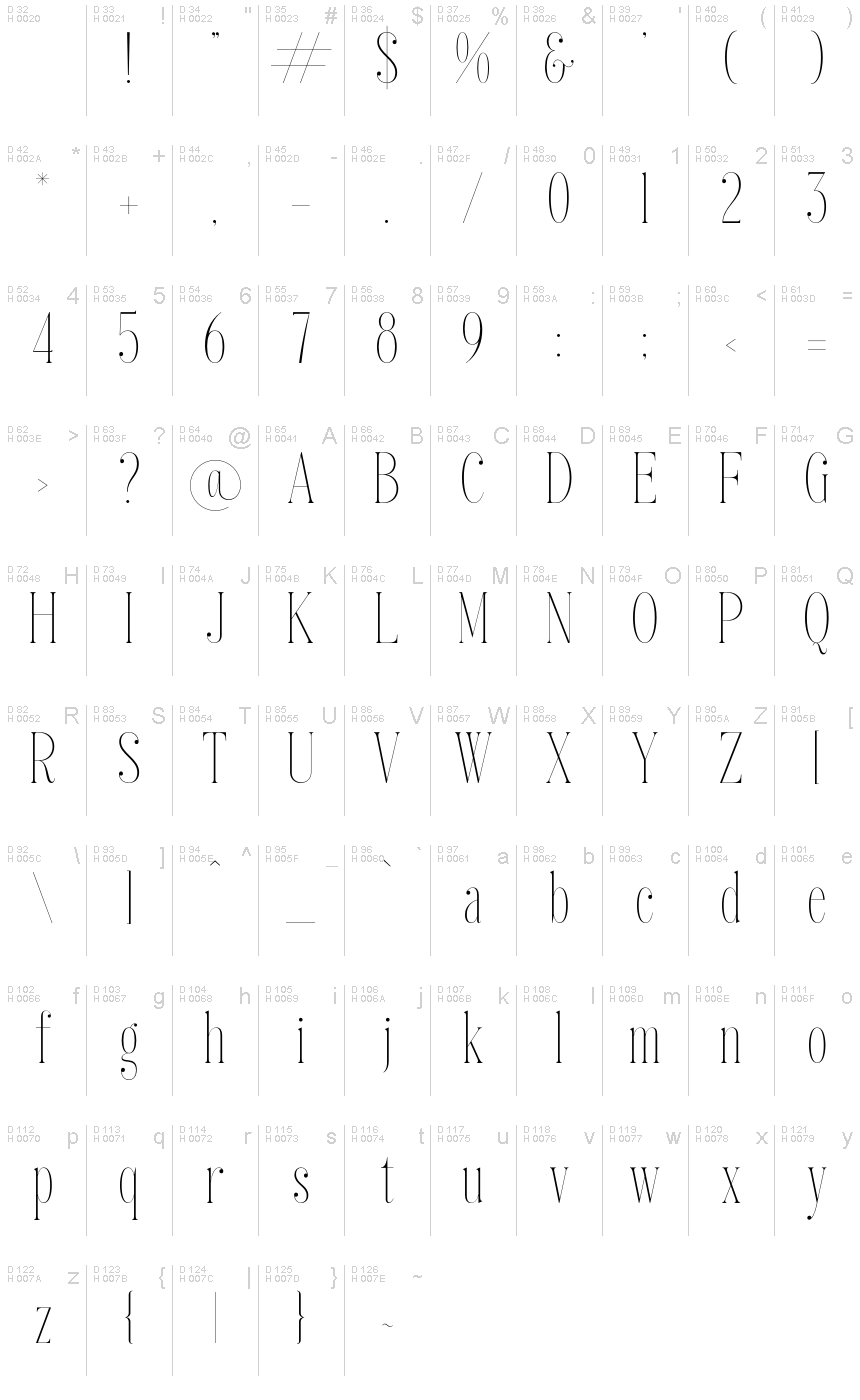
Heafthery Notespage
Heafthery Notespage font, designed by Storytype Studio, beautifully embodies the elegance of serif typography with its light, condensed structure. This font captivates with its sophisticated curves and refined details, striking a balance between modernity and classic charm.
The aesthetic appeal of Heafthery Notespage is accentuated by its delicate strokes that convey gracefulness, making it an excellent choice for applications where a touch of sophistication is desired. Its compact design allows for efficient use of space while maintaining readability, ensuring that every word resonates without overwhelming the page.
Ideal for editorial layouts, upscale branding materials, or elegant invitations, this font elevates any design project with its unique character and clarity. Embrace Heafthery Notespage to create visual narratives that leave a lasting impression.